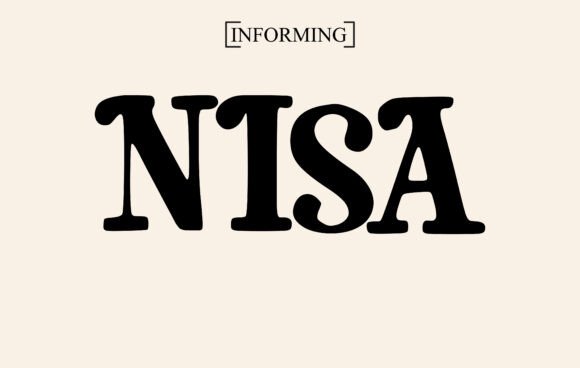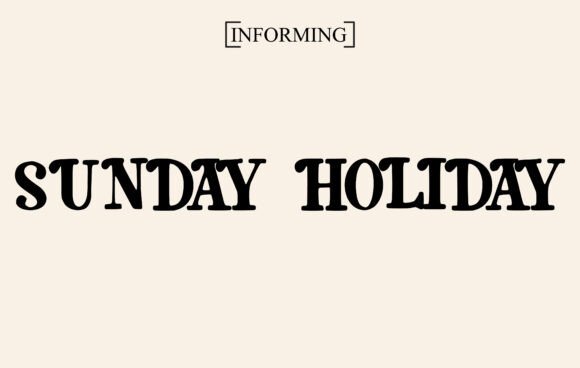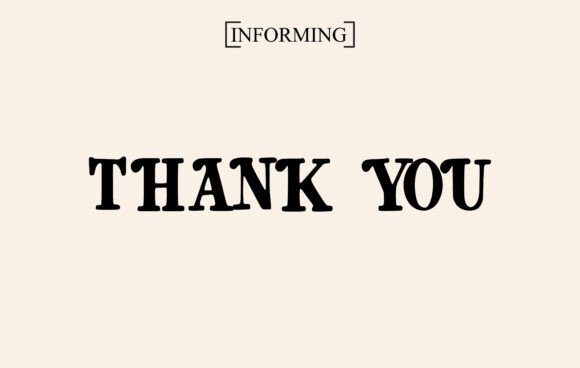
Nisa Font: Bold & Playful Display Font for Creative Branding
About the Nisa Font
Crafted with precision, the Nisa Font is ready to bring your ideas to life. Nisa is designed to be a true favorite; this font has the potential to take your creative ideas to the highest level
Nisa’s strong, yet friendly personality makes it ideal for headlines, logos, and short-form text in branding projects, posters, and social media graphics. Its legibility shines in these applications, commanding attention without overwhelming the viewer. However, its weight might prove less suitable for lengthy body text or UI elements where high readability over extended periods is crucial.
Consider pairing Nisa with a clean sans-serif like Open Sans for body copy to maintain visual harmony and ensure comfortable reading. For a more playful feel, a rounded geometric sans-serif such as Futura might work well. Alternatively, a delicate script font could add a touch of elegance for projects requiring a sophisticated, layered aesthetic.
Ultimately, Nisa’s versatile yet bold design best serves projects needing a confident and approachable feel—brands emphasizing quality, innovation, or a friendly professionalism will find it particularly effective.
Nisa Font Example